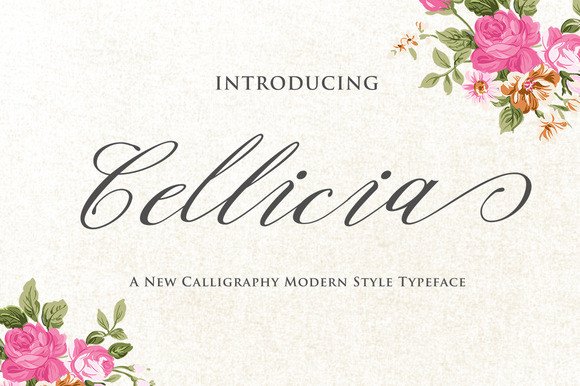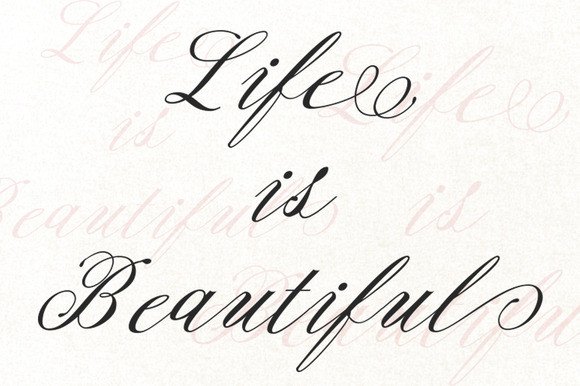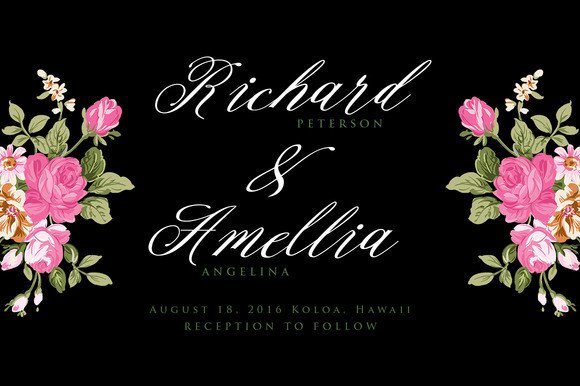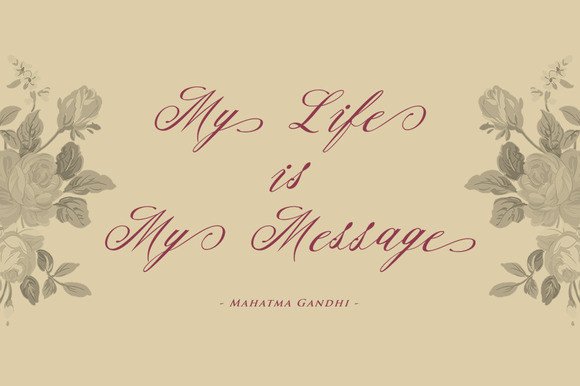
About Cellicia Font
In the realm of typography, Cellicia emerges as a beacon of elegance, bringing a delicate and stunning aesthetic to the script font family. Crafted with thin and precise detailing, this font stands as a paragon of elegance, offering a visual feast for those who appreciate the finer things in design.
Cellicia’s allure lies in its intricate details—each stroke and curve meticulously designed to capture the essence of sophistication. This script font is not merely a tool for text; it is an art form that enhances the beauty of words, transforming simple messages into captivating pieces of art. Whether it’s the branding for a luxury product, the invitation for a momentous occasion, or the layout of a boutique’s signage, Cellicia brings a touch of class and refinement.
The versatility of Cellicia extends across a spectrum of creative print projects. Its fine detailing and elegant appearance make it an ideal choice for designers seeking to impart a sense of sophistication and exclusivity in their work. From wedding invitations to business cards, Cellicia elevates every project it graces, ensuring that the final product is not only seen but remembered.
In a world where design speaks volumes, Cellicia offers a voice of elegance and distinction. Its ability to blend seamlessly into various creative endeavors while maintaining its unique charm is a testament to its exquisite design. For those looking to infuse their projects with a touch of elegance, Cellicia is the script font that transcends ordinary, making every word a celebration of beauty and grace.